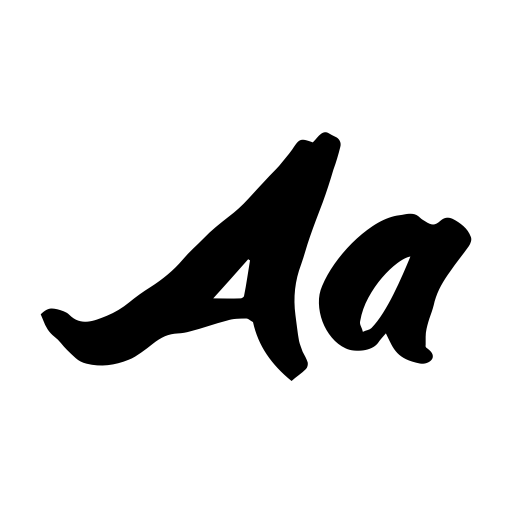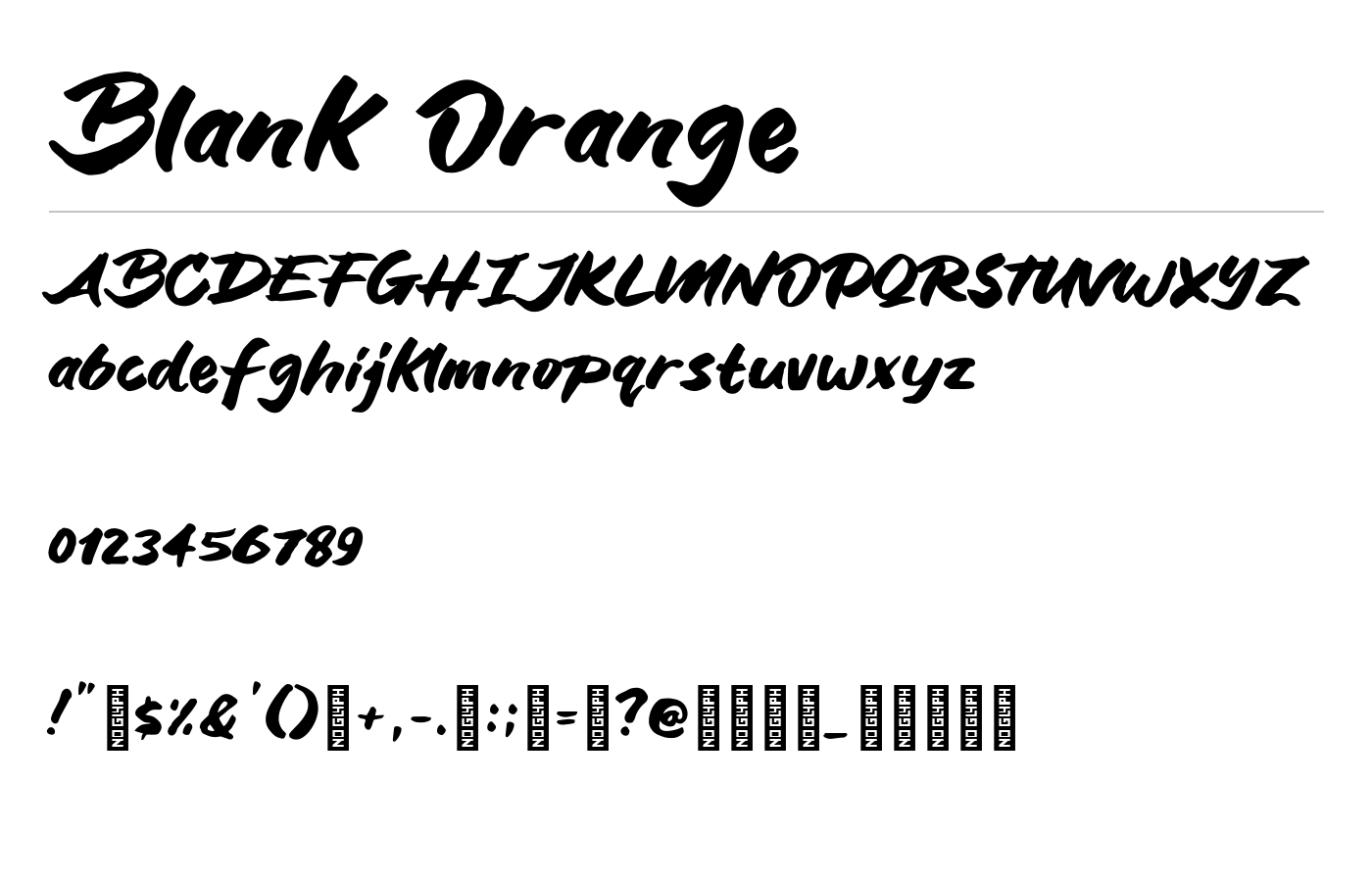
Blank Orange is an energetic and bold script font with a hand-painted feel, characterized by its thick, brush-like strokes and casual, slightly slanted letterforms. It combines strong, rounded shapes with smooth curves for a lively, expressive appearance that works well in creative branding, posters, and headlines needing a personal, dynamic touch. Its friendly yet impactful style makes it ideal for grabbing attention and conveying a spirited, informal vibe.
Blank Orange Font
About Blank Orange Font